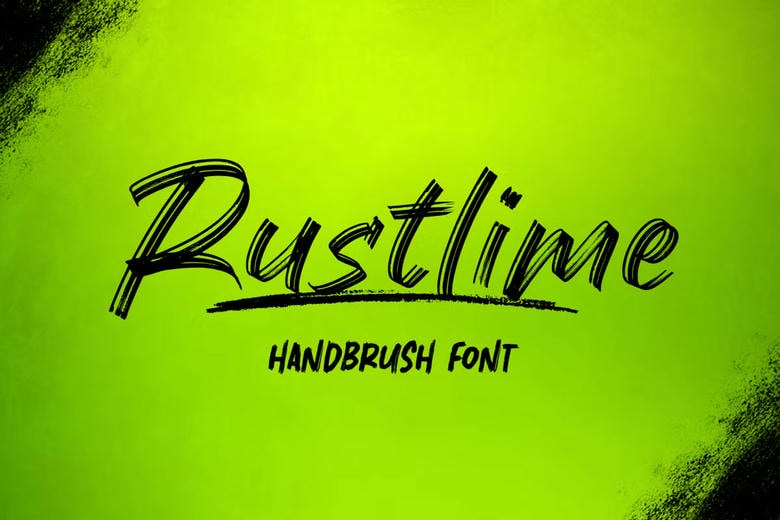
Rustlime Font
Rustlime Brush is the new free handbrush font that can be applied in projects, which need a strong and active image, made by an artist. That’s why with texturized stokes and dynamic look it’s perfect for use in poster, logos, packaging and where strong impact is needed. You’re welcome to let Rustlime Brush help you materialize your creative concepts!
Rustlime Brush Script Font